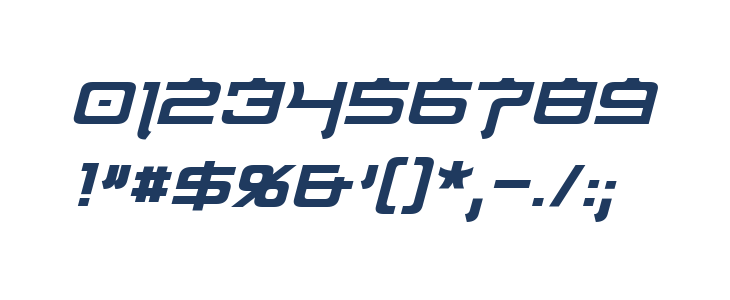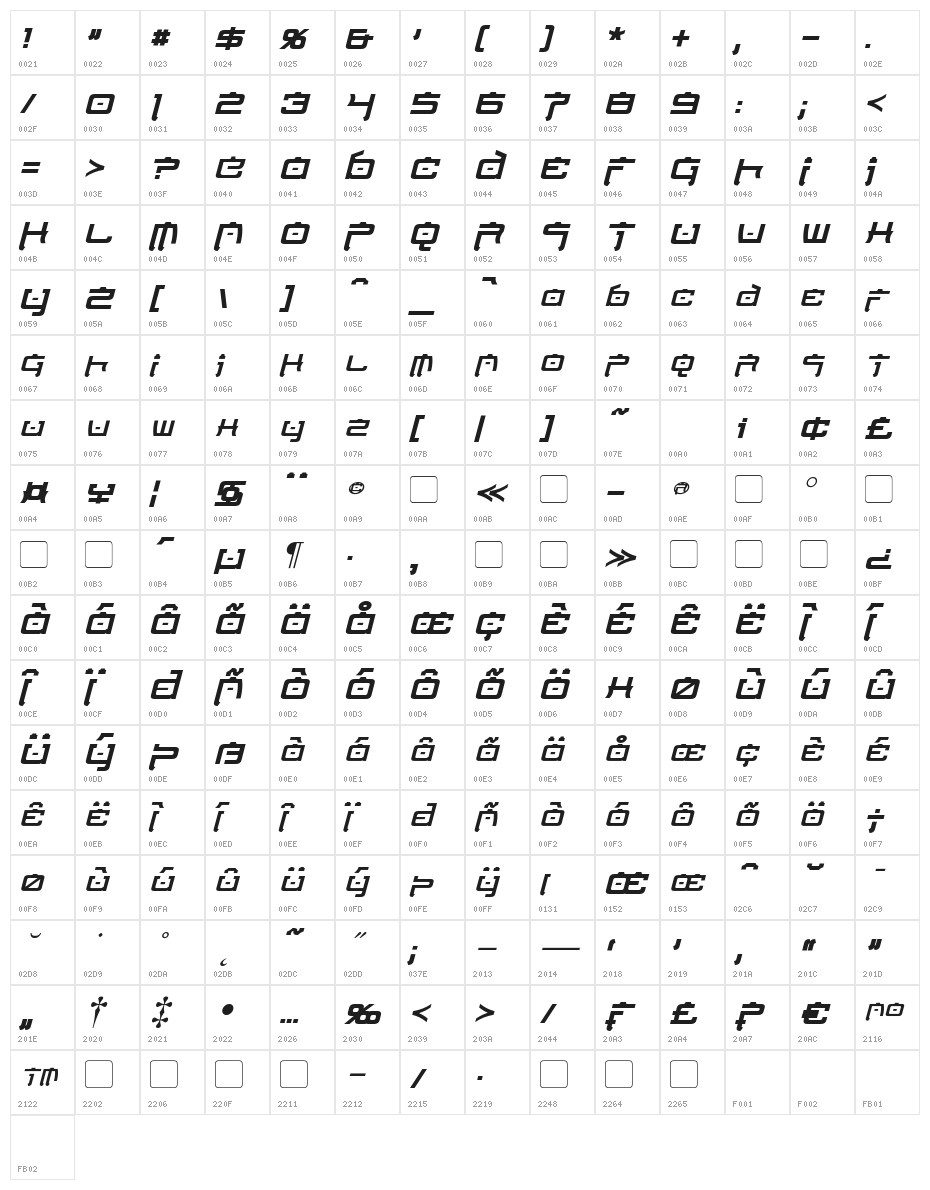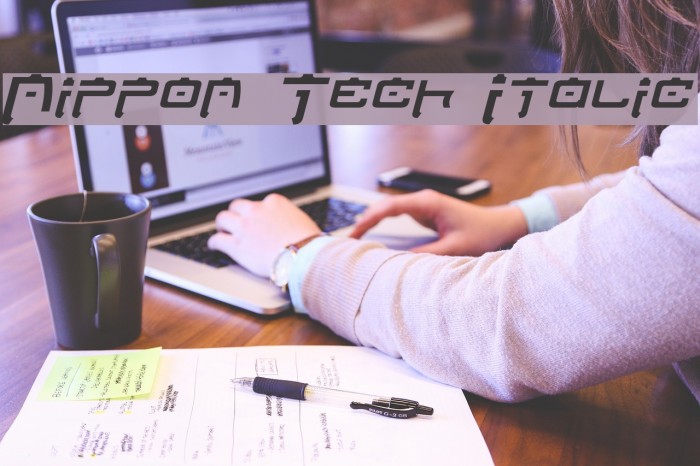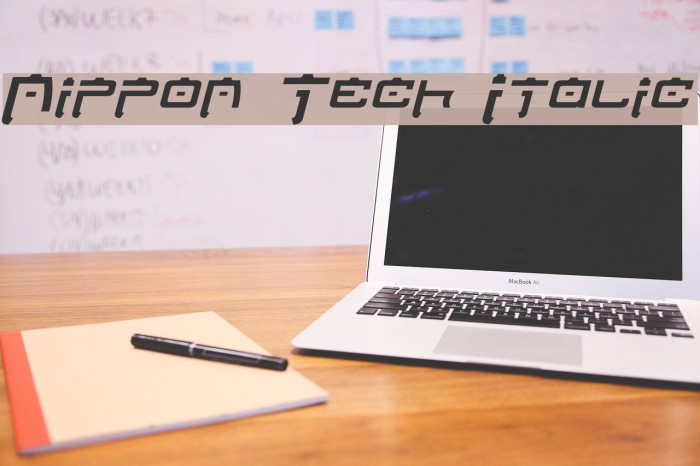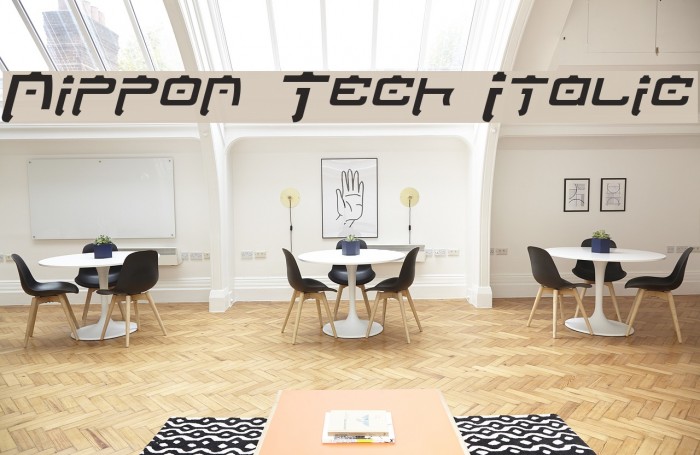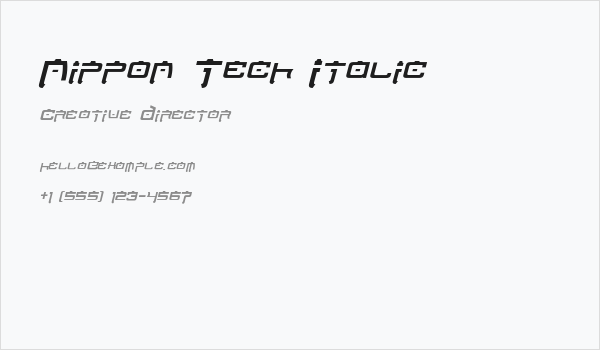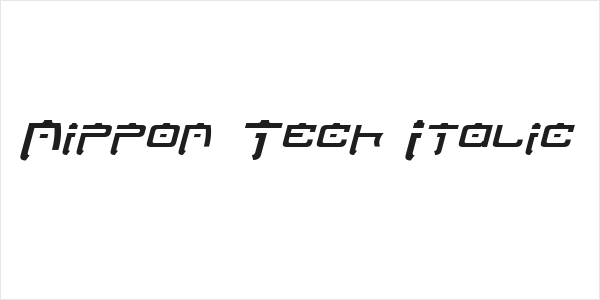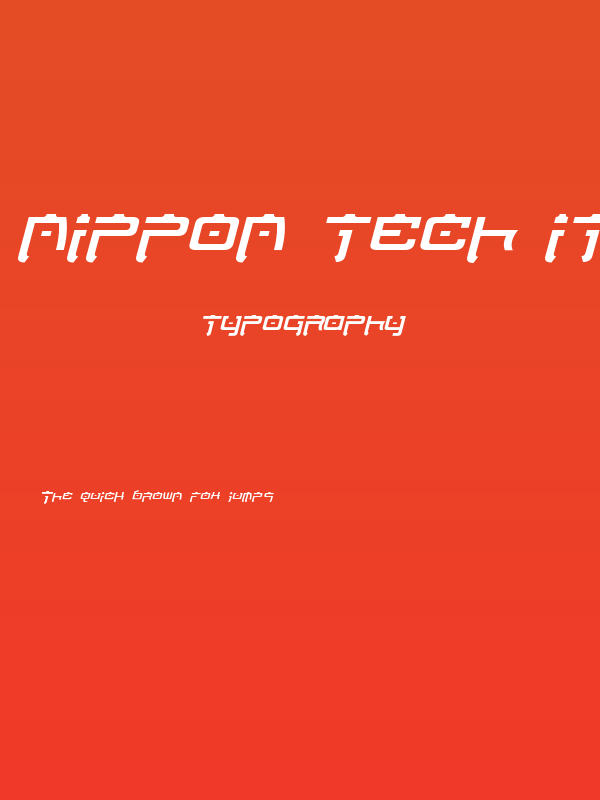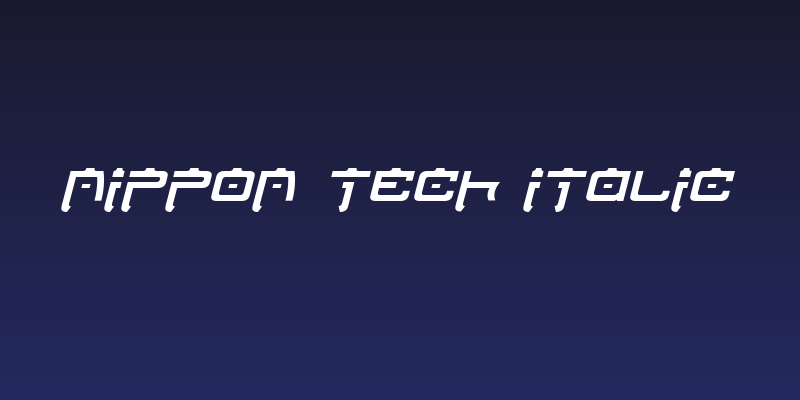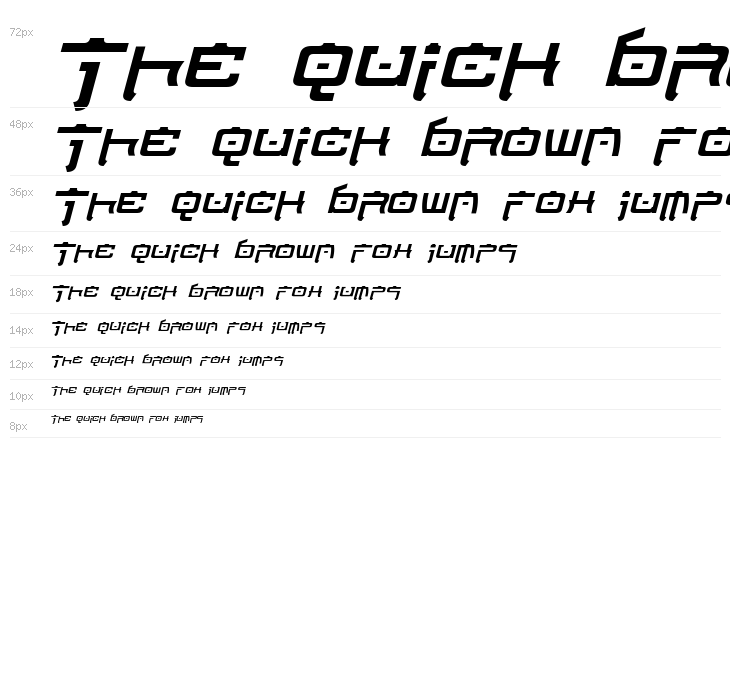
Nippon Tech Italic Font
Nippon Tech Italic Description
This font exhibits a futuristic and technological aesthetic, characterized by its angular and geometric letterforms. The italic style adds a dynamic and forward-leaning appearance, enhancing its modern and sleek design. The characters are bold and distinct, with sharp edges and a consistent stroke width that conveys a sense of precision and innovation. The numerals and special characters maintain the same angular style, ensuring uniformity across all glyphs. This font is ideal for projects that require a contemporary and cutting-edge look, such as technology branding, sci-fi themes, or digital interfaces.
Proposed ProjectsIdeal for technology branding, sci-fi themes, digital interfaces, and modern advertising.